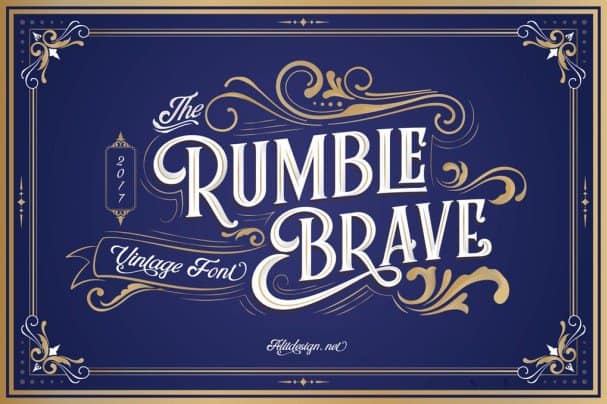
Rumble Brave Vintage Font
Introducing the Rumble bold retro font. Its classic look is reminiscent of the tangled font. This unique font was crafted by email initially, then released by a renowned design studio. Discover the charm of Rumble and add a touch of vintage to your projects today!